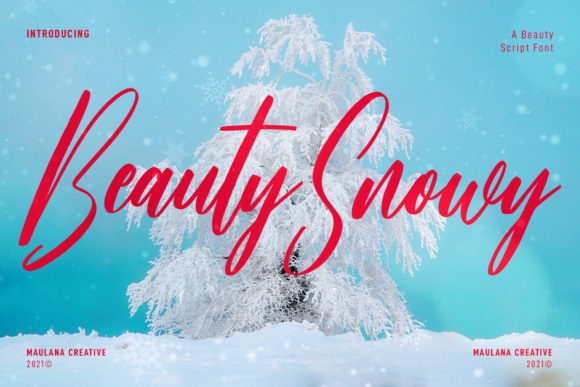
Dive into the world of Beauty Snowy Script, an exquisite font that dances across your designs with a captivating super slanted signature style. Designed by the talented Maulana Creative, this script font stands out with its high contrast strokes, condensed characters, and playful ligatures, creating an impression that's both captivating and memorable.
Experience the enchantment of Beauty Snowy Script, a font that weaves its magic through your creative projects. Its delicate yet bold lines evoke a sense of elegance and charm, while its playful personality shines through in its sweeping curves and dynamic angles. Ideal for creating stunning logos, eye-catching social media posts, and captivating movie titles, this font adds a touch of artistry to any project.
Transport yourself to a winter wonderland with Beauty Snowy Script, a font that embodies the beauty and wonder of the Christmas season. Its graceful lines and elegant flourishes evoke images of snowflakes dancing in the air, creating a sense of enchantment and whimsy. Perfect for crafting holiday cards, gift tags, and festive invitations, this font brings the magic of Christmas to life.
With Beauty Snowy Script, your words take on a life of their own, flowing seamlessly across the page in a vibrant dance of letters. Its condensed nature lends itself perfectly to short texts and long letters alike, ensuring that your message is delivered with clarity and impact. Whether you're designing a sleek logo, crafting a heartfelt letter, or creating a captivating book title, this font adds a touch of sophistication and charm that leaves a lasting impression.